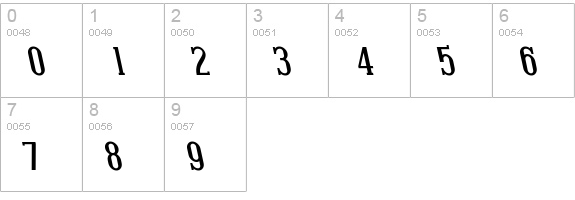
Covington Rev Bold Italic Font Details
Covington Rev Bold Italic is a strong, high-contrast, italic variant in the Covington typeface family \xE2\x80\x94 well suited to headlines, attention-grabbing titles, and strong calls-to-action.
Covington Rev Bold Italic is a stunning and versatile font that exudes elegance and sophistication. Its bold and italicized design adds a touch of modernity and style to any design project. With its unique blend of strong lines and graceful curves, Covington Rev Bold Italic is perfect for creating eye-catching headlines, branding materials, and more. Best of all, Covington Rev Bold Italic is available for free download at FontsMarket.com. This means that you can easily access this beautiful font and use it in your projects without any cost. Don't miss out on the opportunity to enhance your designs with the timeless beauty of Covington Rev Bold Italic - download it today and take your creativity to the next level!